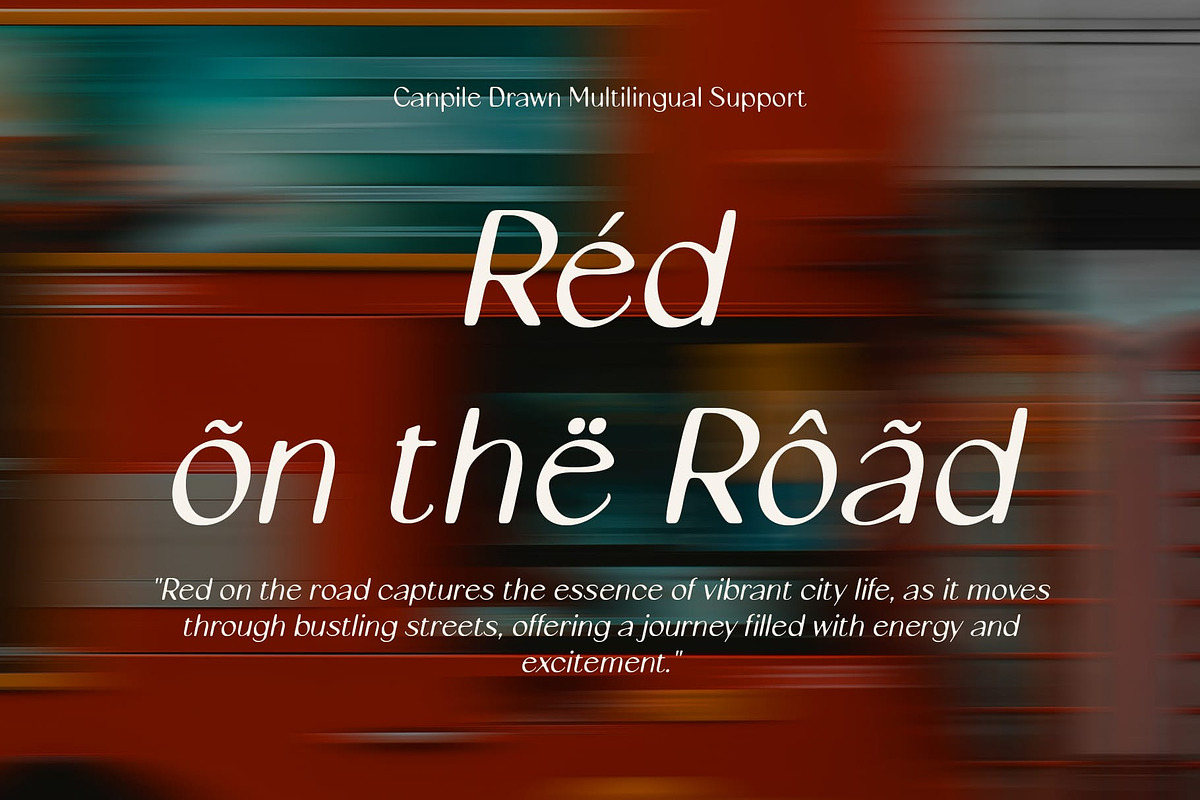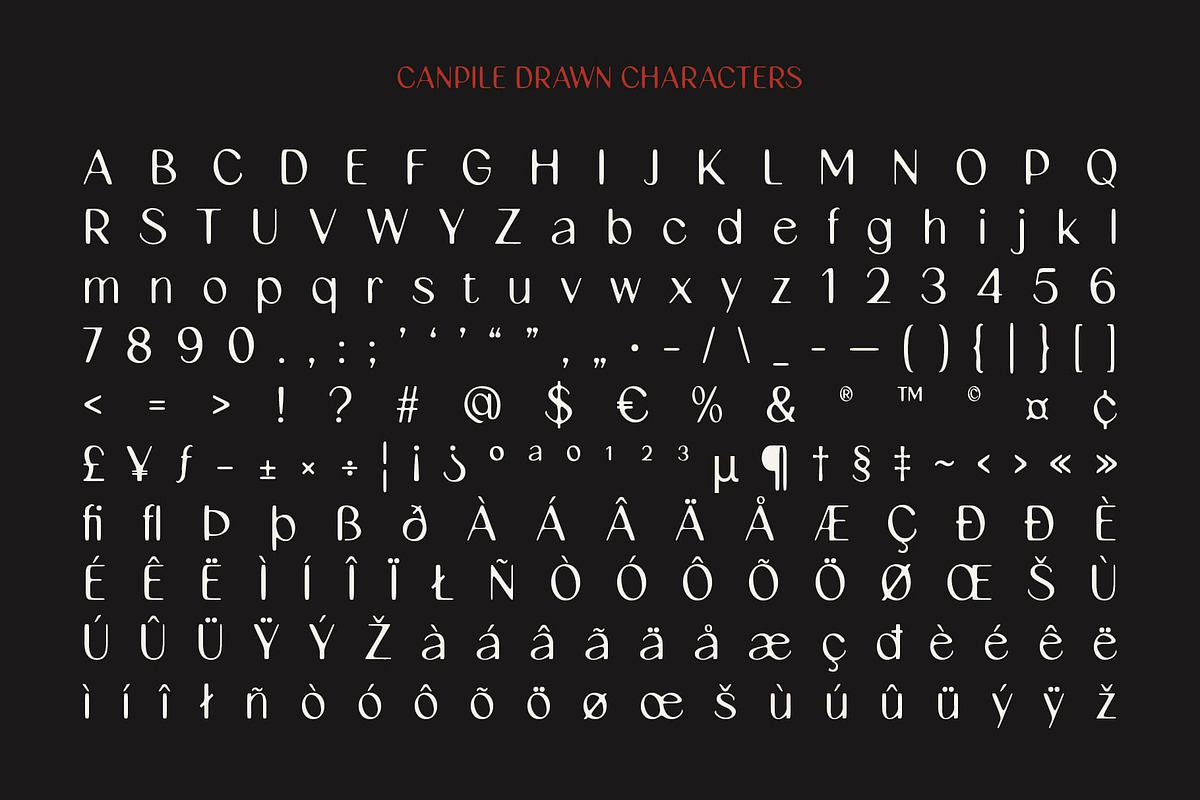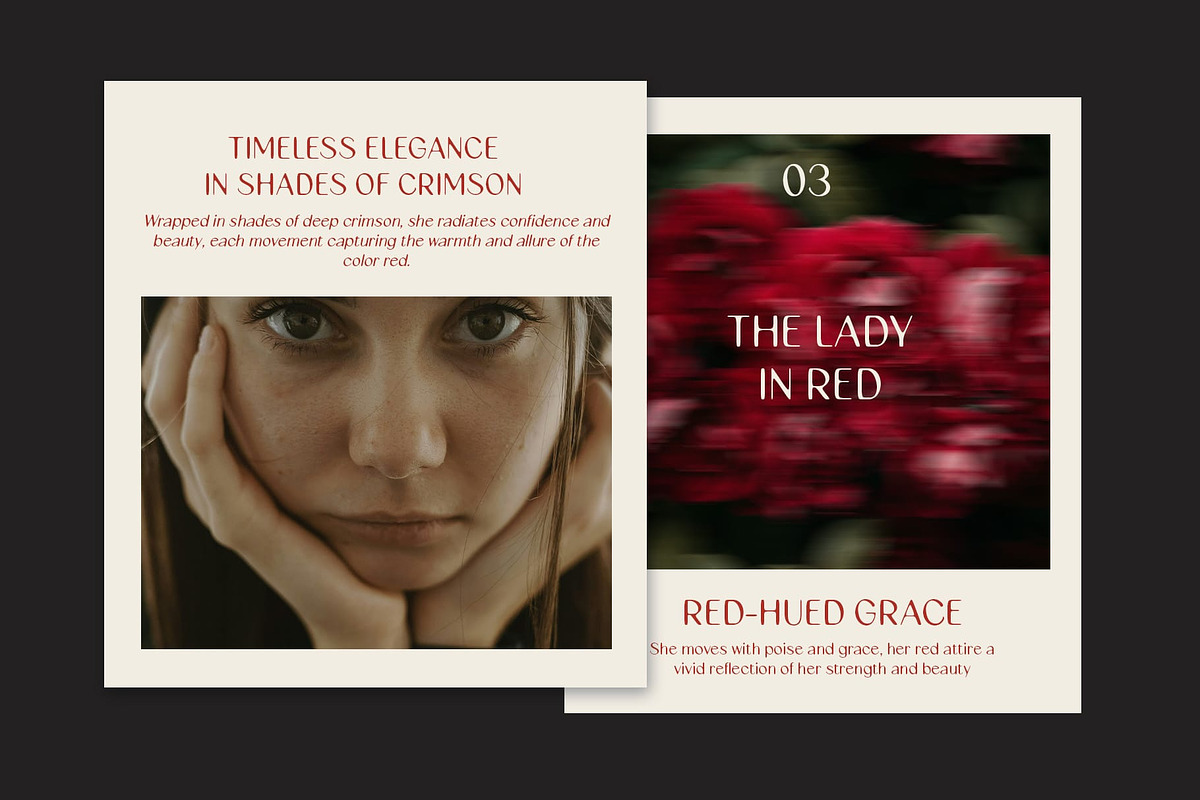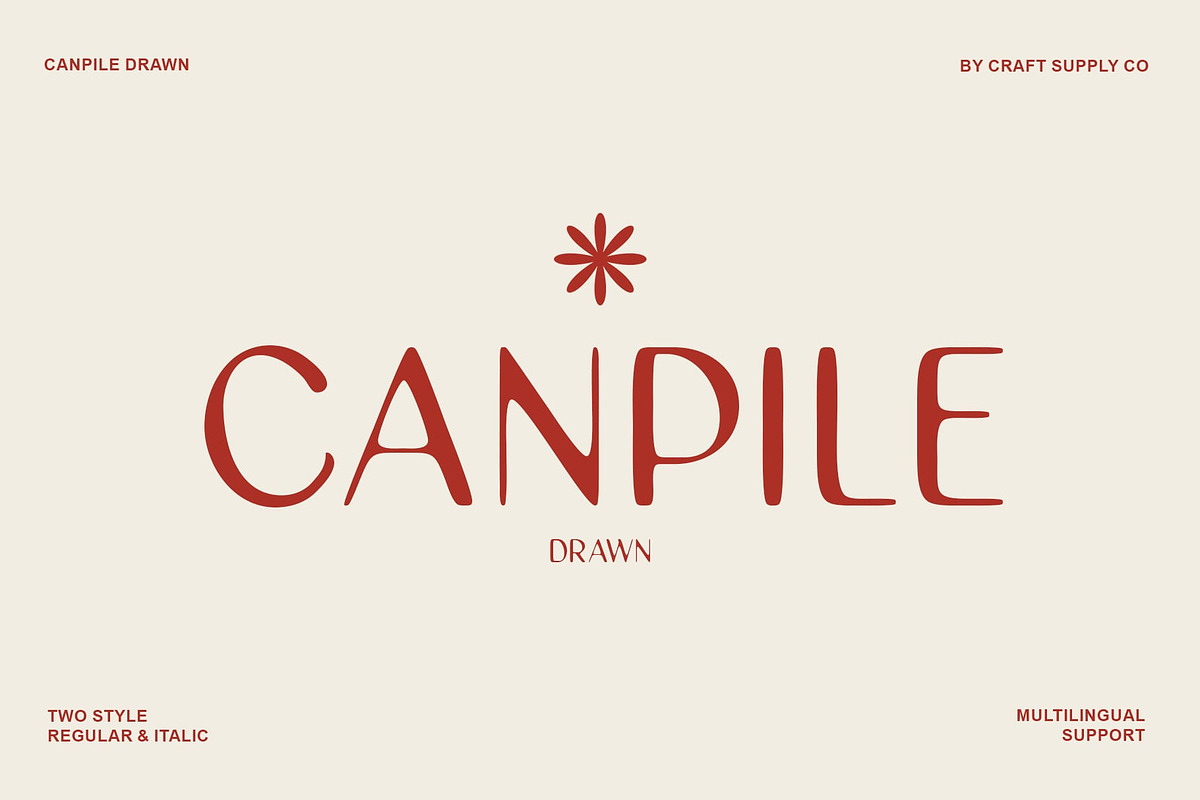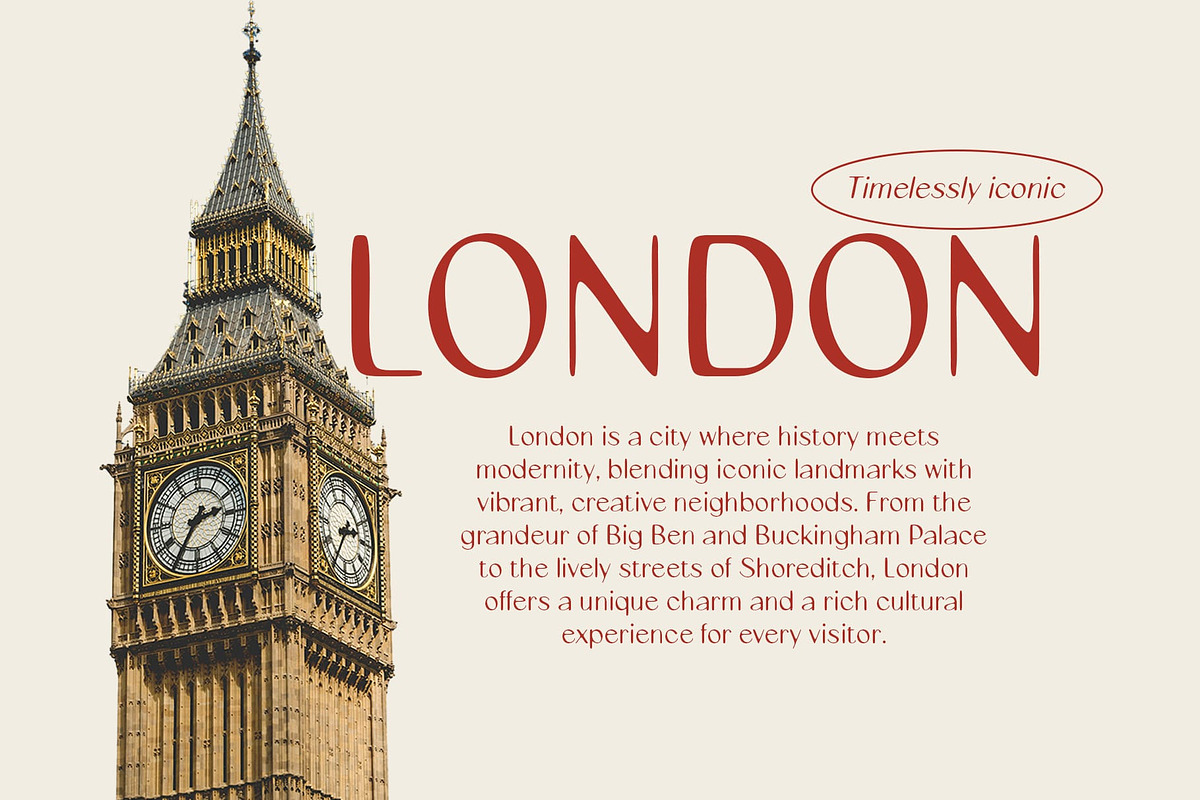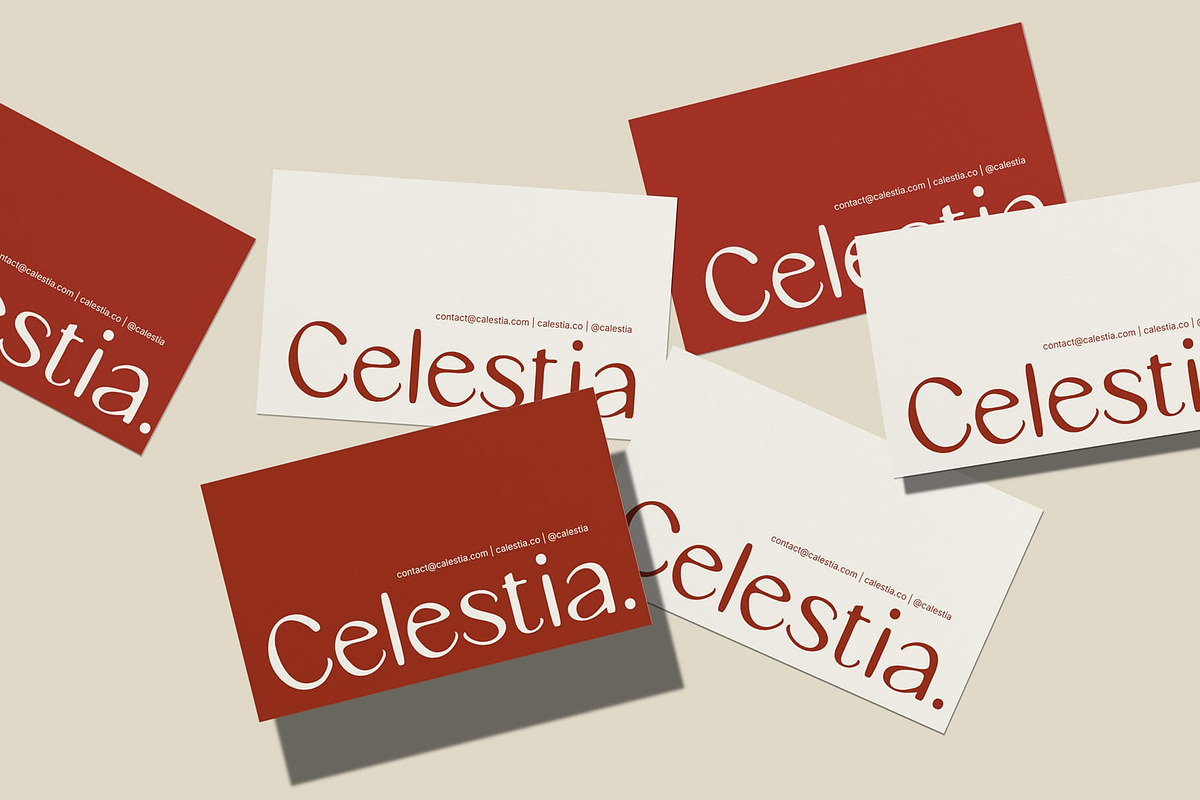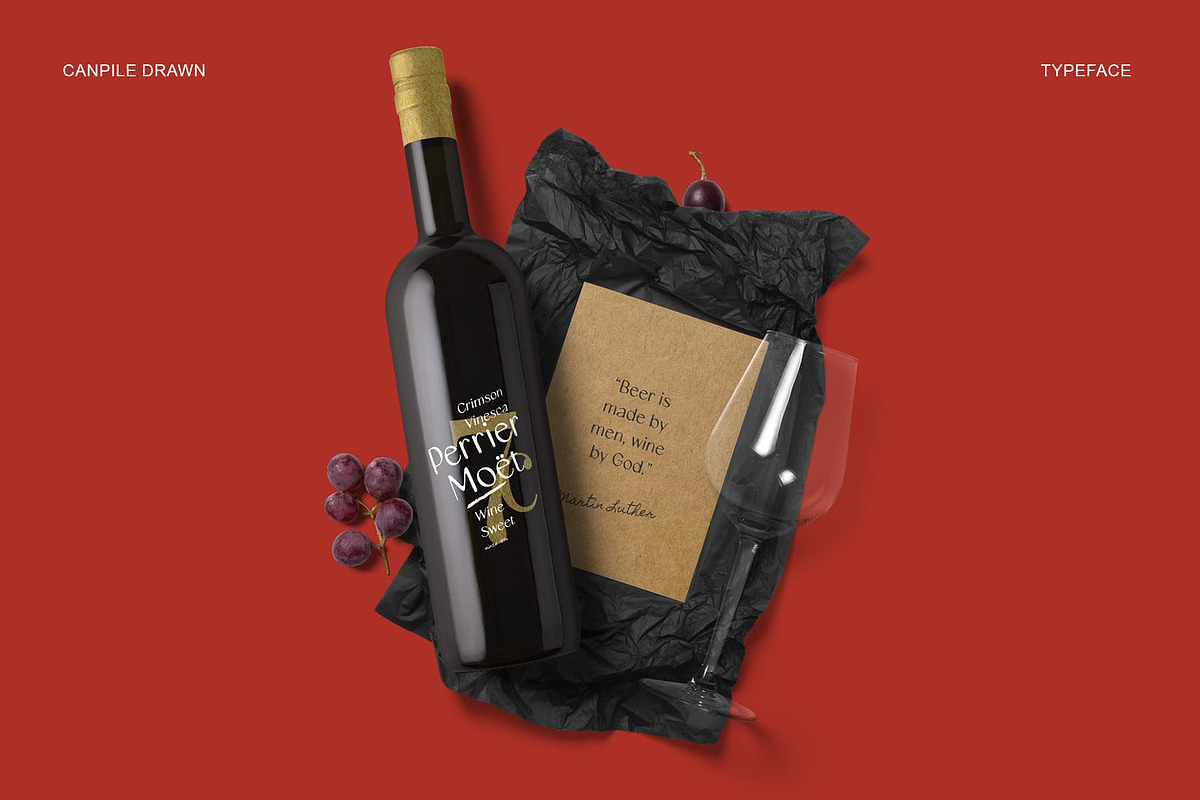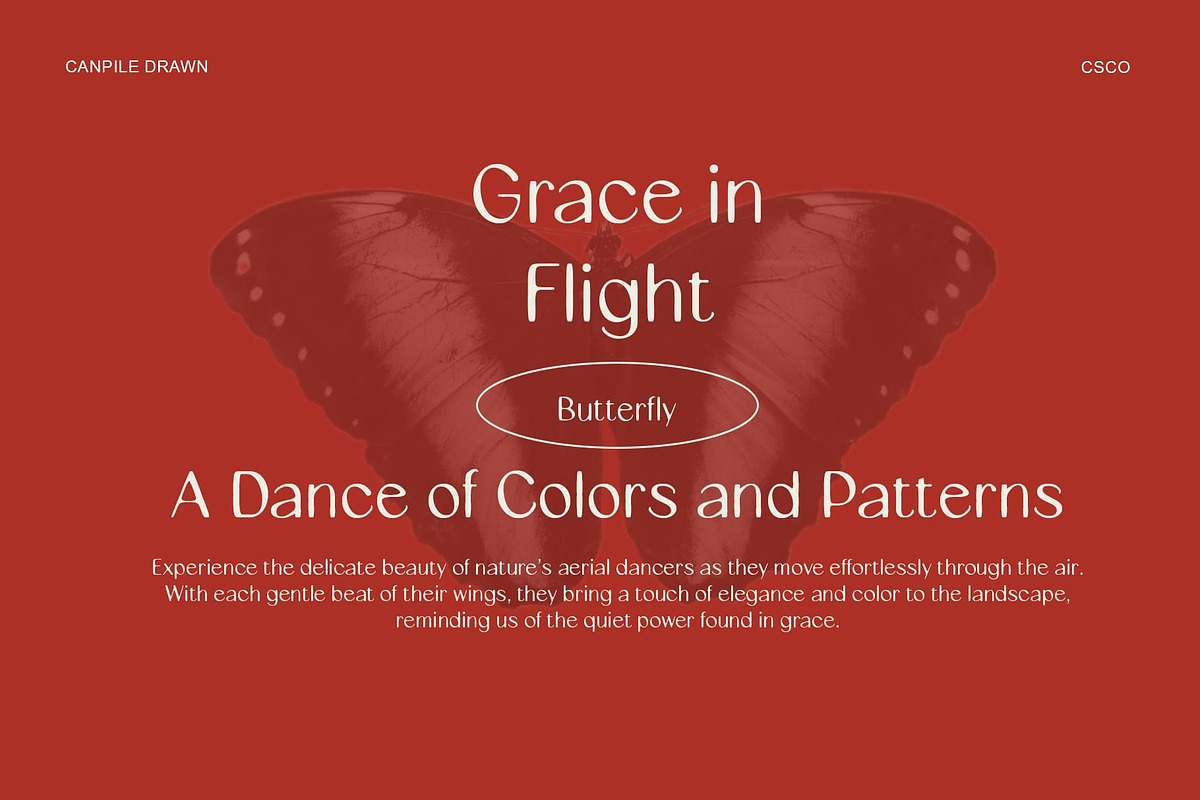
Canpile Drawn
Canpile Drawn – Modern Sans Serif Font with a Creative, Hand-Drawn Touch
Geometric Precision with a Personal Drawn Effect Canpile Drawn is a modern sans serif font that combines the clean, sharp lines of geometric shapes with a unique, hand-drawn effect. This thoughtful blend of precision and artistic flair results in a typeface that feels both professional and creative. Its sharp geometric structure offers clarity and modernity, while the drawn effect injects personality and warmth into each letterform. The balance between structure and creativity makes Canpile Drawn a versatile choice for a wide range of design projects.
Visual Depth and Artistic Expression The drawn effect adds depth and personality to Canpile Drawn, softening the precision of its geometric forms with a touch of handcrafted charm. This subtle, yet impactful detail transforms the font from a simple, straightforward design into a visually engaging and creative asset. The result is a modern, dynamic font that stands out in any design.
Perfect for Modern, Expressive Branding Ideal for modern brands that want to combine elegance with originality, Canpile Drawn is perfect for projects requiring a balance of professional and creative elements. From minimalist logos to digital interfaces, this font delivers a sophisticated edge while maintaining a fresh, artistic vibe. Its versatility makes it a perfect choice for a variety of contemporary applications, including branding, advertising, and editorial design.